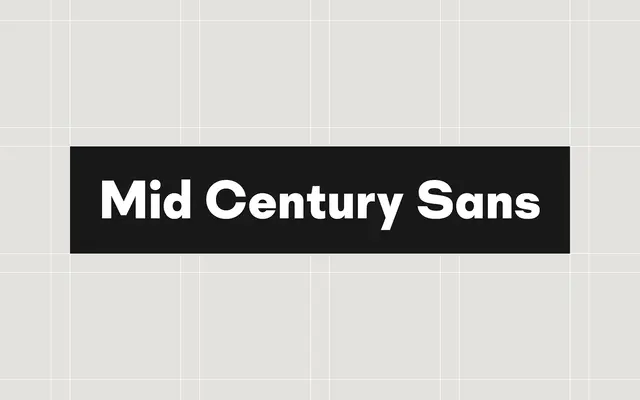
Mid Century Sans specimen from Dharma Type
A geometric sans with eight weights and matching italics, blending Bauhaus clarity with the softer, more approachable warmth of Mid-Century Modern design.
The family takes its cues from early twentieth-century modernist typography whilst tempering the rigidity of pure geometric construction with friendlier, more organic stroke details. Eight weights run from Thin to ExtraBold with matching italics, and language support covers Latin Extended and basic Cyrillic scripts. A stylistic alternate for the lowercase 'a' is available via OpenType, allowing a switch between the geometric single-storey and a more conventional double-storey form.
Built on highly geometric letterforms with Bauhaus influence, but with humanist softening drawn from Mid-Century Modern aesthetics, placing it firmly in the geometric sans category with organic undertones.